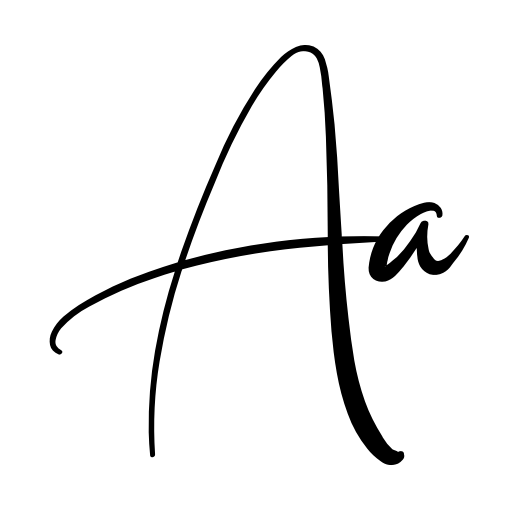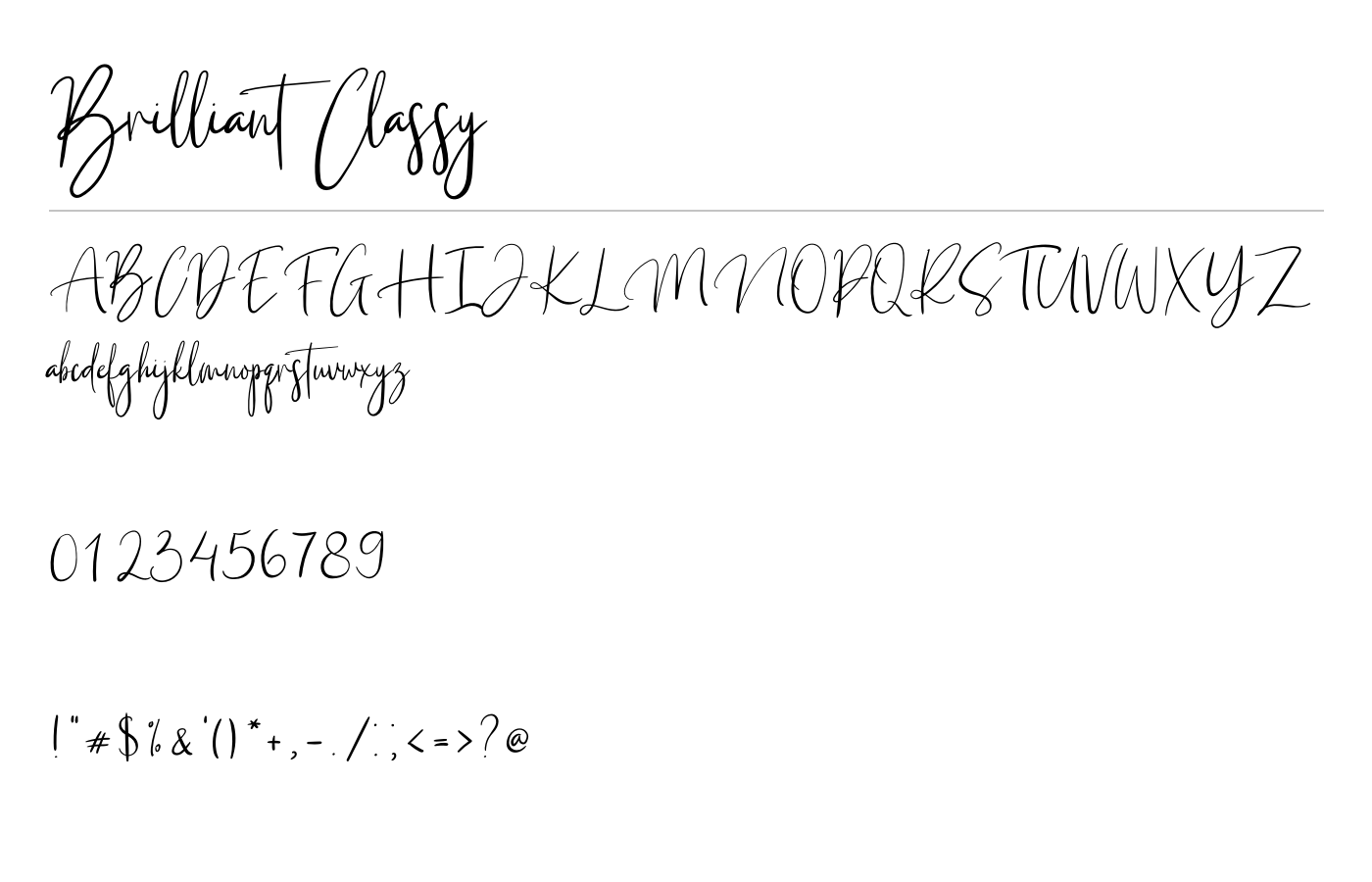
Brilliant Classy is a delicate, handwritten script font characterized by its thin, flowing strokes and elegant, organic letterforms. With a graceful, tall x-height and smooth, calligraphic lines, it conveys a refined, personal touch that works beautifully for invitations, branding, and stylish editorial projects where a sense of sophistication and intimacy is desired. Its light weight and airy spacing make it ideal for adding charm and elegance without overwhelming the design.
Brilliant Classy Font
About Brilliant Classy Font
| Font family | Brilliant Classy Font |
| Designer | Risca Anitawati |